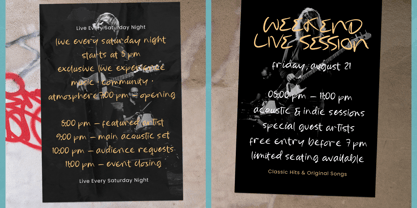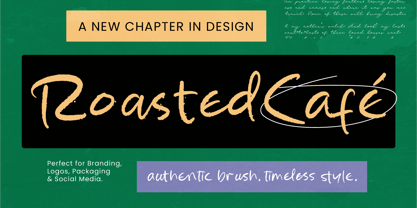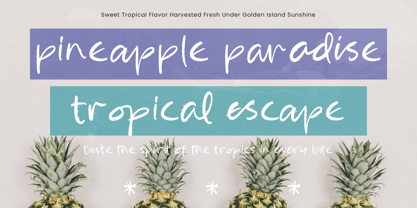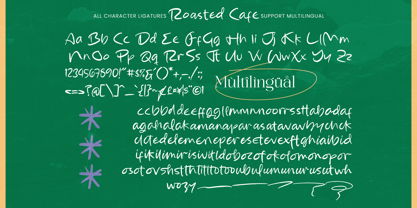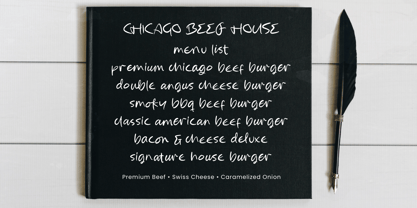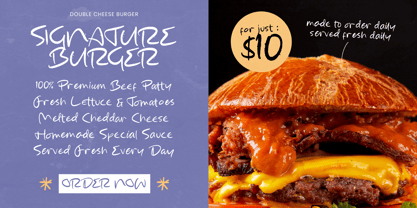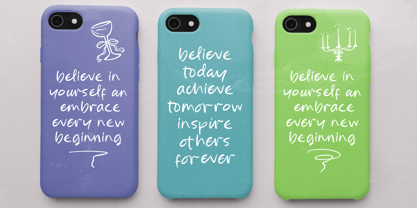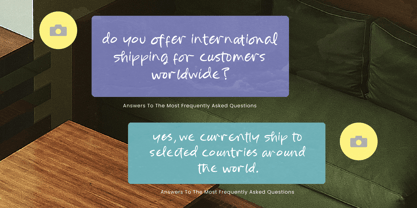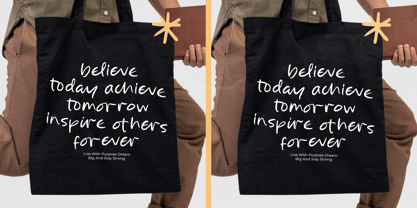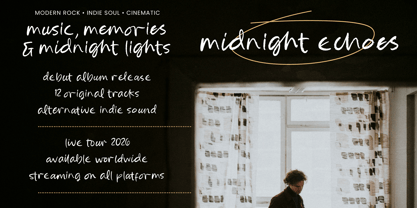
Roasted Cafe
by Stylishtype Studio
The Roasted Cafe Font Family was designed by Heru Utama Putra and published by Stylishtype Studio. Roasted Cafe contains 2 styles and family package options. More about this family
Elevate your creative projects with a touch of authentic human expression. Roasted Cafe - Handwritten Brush Script captures the raw energy of manual brush strokes, offering a textured aesthetic that brings a natural, handcrafted feel to digital designs. Its dynamic flow and organic character make it an essential tool for designers seeking to break away from rigid, clinical typography.